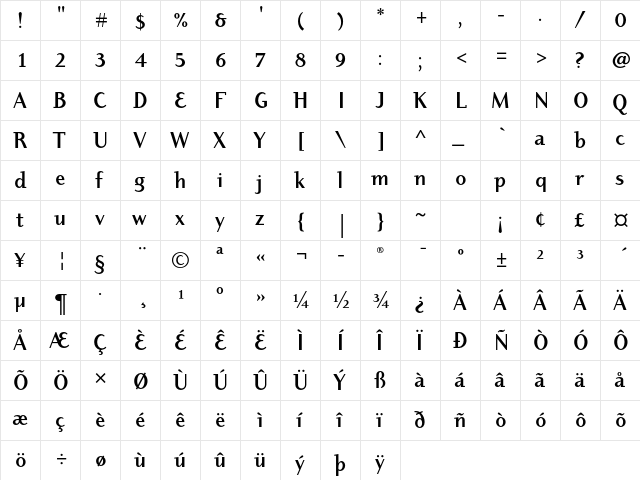
Dyadis ITC Std Bold
| Designer | Yvonne Diedrich |
Design Context for Dyadis ITC Std Typeface
Dyadis ITC Std offers clean, dependable letterforms without strong stylistic allegiance, making it a practical choice for designers who need flexibility. The heavy weight commands attention and anchors typographic hierarchies.